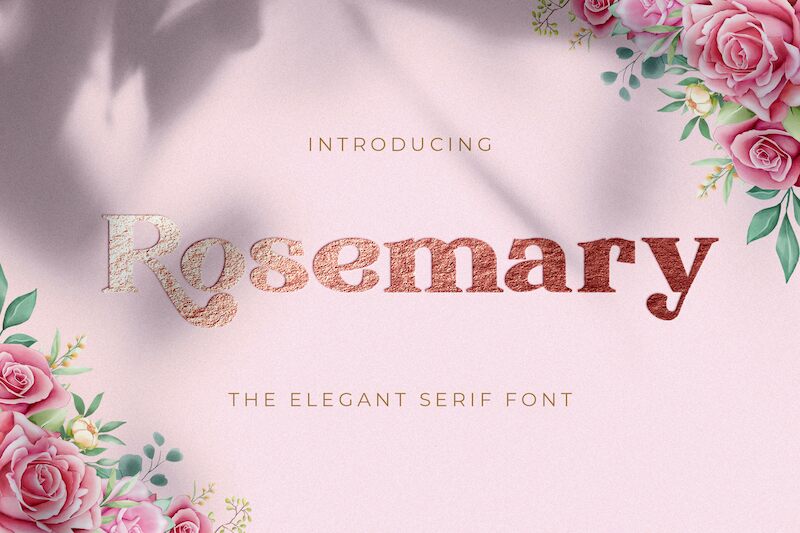
Rosemary
Rosemary is a bold and wide elegant serif font designed by Virgiawan Listanto. It's perfect for creating a sophisticated and modern look in projects such as book covers, posters, logos and website headers.